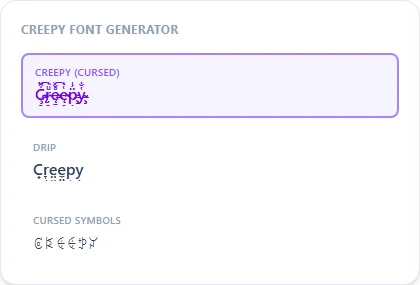
Creepy Text Generator
This is the horror end of the same combining-mark technique behind glitch and zalgo text. Extra marks stacked above, below, and through each letter until it reads as cursed rather than just stylized.
Creepy (Cursed) is the most extreme, best for a short horror-themed caption; Drip adds a dripping, below-the-line look that reads more like blood or dripping paint than pure chaos.
Creepy Text Generator style examples: Creepy (Cursed), Drip, Cursed Symbols, rendered on the word "Creepy"
The technique behind 'cursed' text
Creepy text uses the same Unicode combining-mark stacking as zalgo and glitch styles, tuned here toward the horror end of the spectrum. Extra marks pile above, below, and through each letter until the shape of the original text starts to disappear under the distortion — the same effect long associated with 'cursed' image macros and horror-themed forum posts.
When to use Drip instead of Cursed
Cursed (Zalgo Wild) is the most chaotic option, good for a short, high-impact horror caption. Drip only adds marks below each letter, so it reads more like something dripping, like blood, paint, or slime, than pure static distortion, and holds up slightly better in longer phrases.
What makes this different from the freaky font generator?
Same underlying technique at a higher intensity — this page leans into the horror/cursed framing specifically, with the Drip style added for a dripping-blood look freaky text doesn't have.
Why does heavily creepy text sometimes overlap between lines?
The combining marks stack above and below your letters, so at high intensity they can visually spill into the line above or below — expected behavior for this style, not a bug.
Is this good for a Halloween post?
Yes, it's one of the most common uses — Cursed or Drip both work well for a short seasonal caption or bio line.
Will this text still be readable to people who see it?
At high intensity, only loosely — that's the intended effect. Use Zalgo Medium instead of Zalgo Wild if you want the creepy look while keeping the text mostly legible.